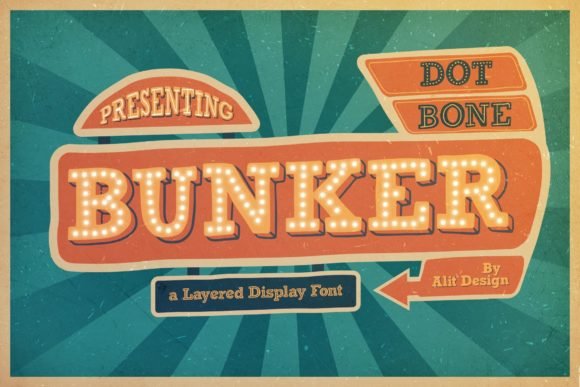
The Power of a Bold Statement
There’s nothing quite like the thrill of bringing a design concept to life. The moment when all the pieces come together, and you know you’ve created something truly special. For designers, it’s that spark of inspiration that drives us to push the boundaries of creativity and make our mark.
One font that’s sure to make a statement is the Bunker Font Font. This gorgeous and bold display font is designed to add a retro touch to your headlines and logotype projects, giving them a strong, confident, and dynamic feel. Whether you’re working on a vintage-inspired campaign or simply want to add some nostalgic character to your designs, Bunker Font Font is the perfect tool for the job.
With its versatility and timeless charm, Bunker Font Font is a valuable addition to any designer’s toolkit. Whether you’re a seasoned pro or just starting out, this font is sure to help you make a lasting impression.
Bunker Font Font Key Features
- Unique Characteristic: Bunker Font Font features a distressed, gritty aesthetic with a vintage feel
- Font Style: Available in 6 font styles, including Regular, Italic, Bold, Bold Italic, Outline, and Shadow
Bunker Font Font Review
Overall, I’m impressed with the Bunker Font Font and I’d like to highlight what works well. ✨ The font’s unique, rugged aesthetic is perfect for projects that need a strong, industrial feel. It’s great for headings, titles, and other elements where you want to make a statement.
The font’s versatility is another plus. ✨ You can use it for a wide range of projects, from tech and engineering to fashion and lifestyle. It’s also suitable for both digital and print media.
However, there are some limitations to consider. ⚠️ The font may not be the best choice for projects that require a more elegant or refined look. It’s also not suitable for text-heavy content, as it can be difficult to read at smaller sizes.
Overall, I’d recommend the Bunker Font Font for projects that need a strong, industrial feel. While it may not be the best choice for every project, it’s a great addition to any designer’s toolkit.
Use the Bunker Font Font to create a cohesive industrial or post-apocalyptic aesthetic in your designs.
Use the font in combination with other industrial-style graphics and typography to create a cohesive look.